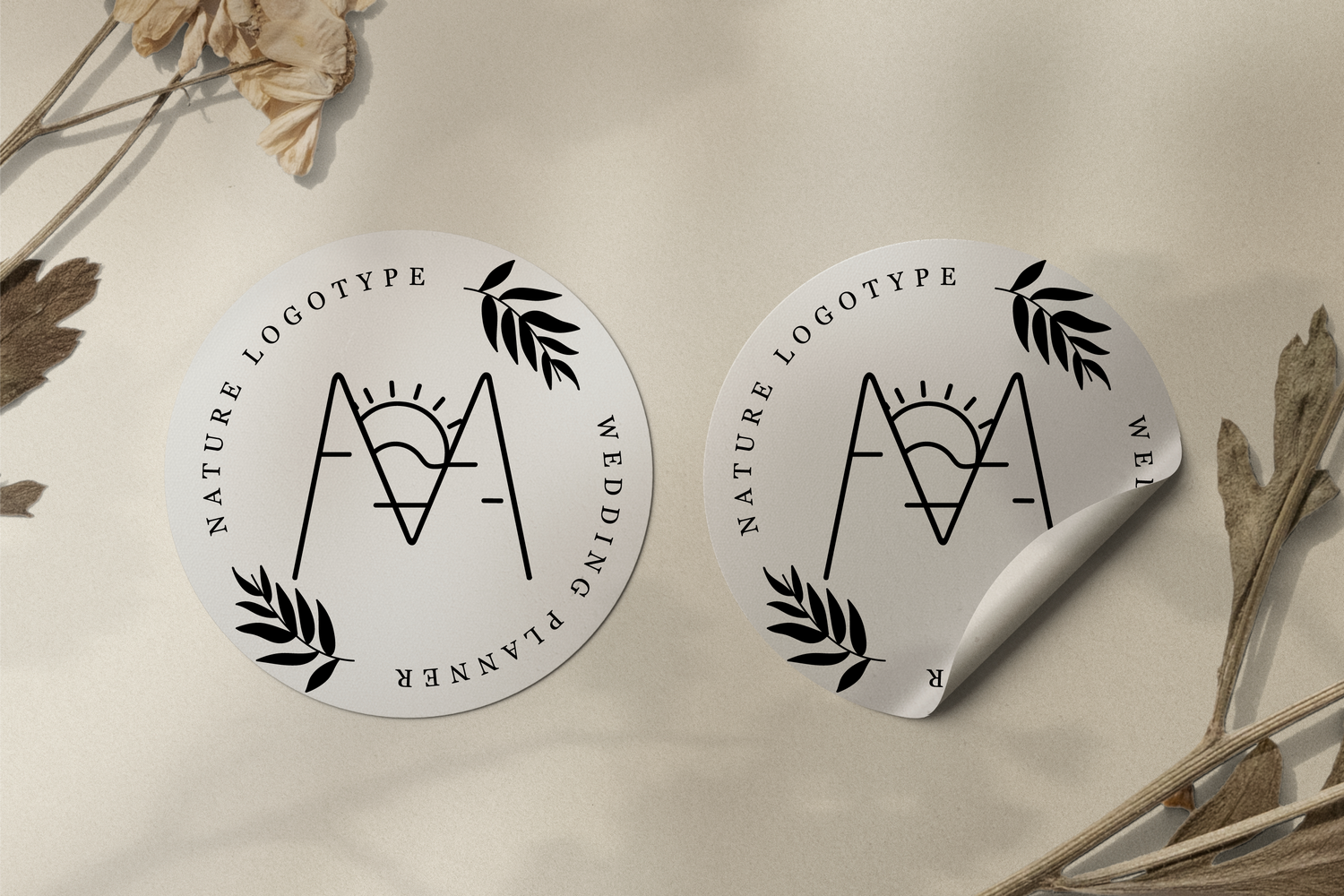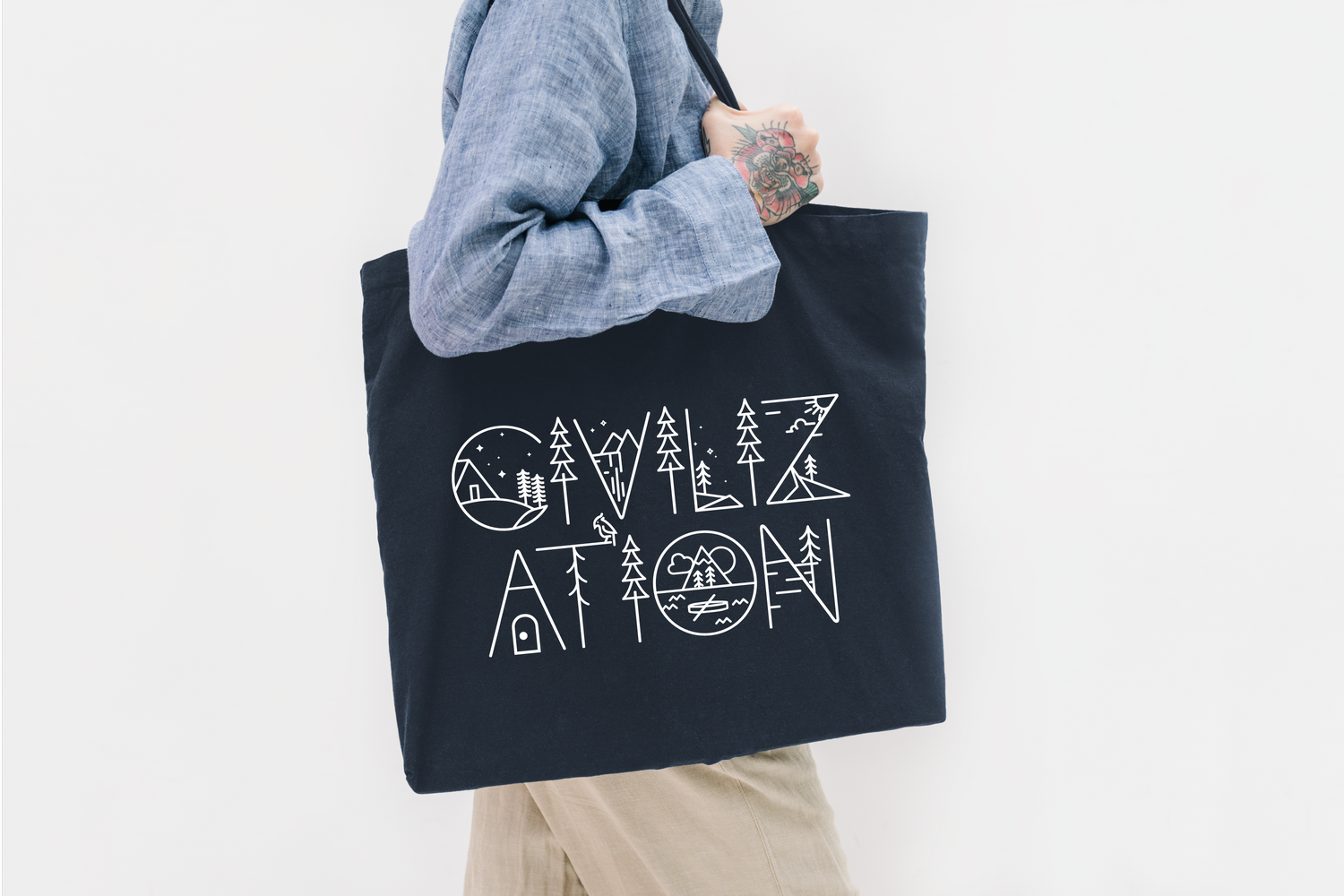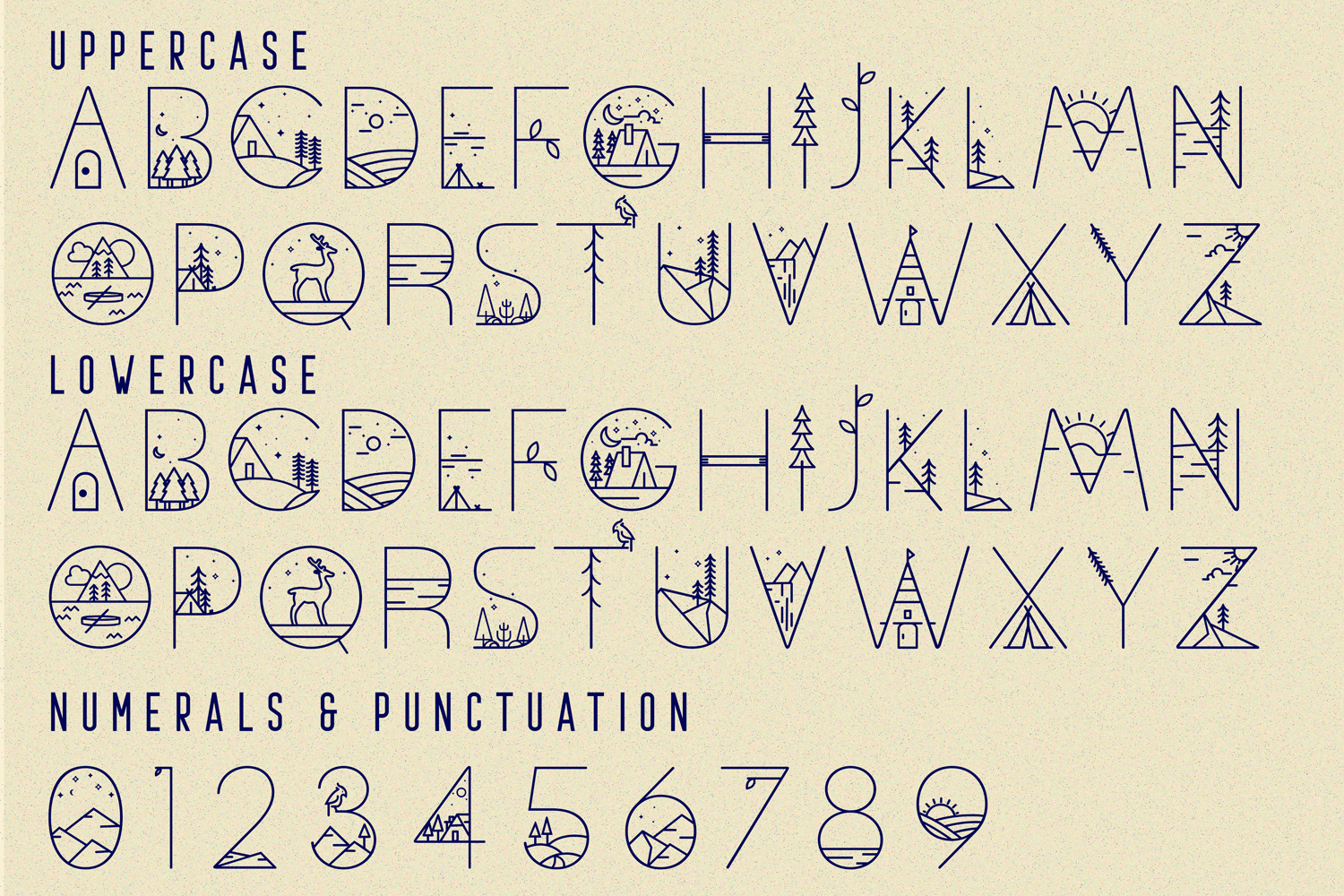
Nature Impact Font is a thin line font in nature style, uppercase is decorated with geometric and natural elements. It’s a decorative font! Initials are ornamented with floral designs, flowers, plants, leaves etc…Feel free to check out all the screenshots to get a better idea of how these letters can help you in your projects. This font will perfectly fit for various label and logo designs. It’s working better with short big words, when all the details are visible.